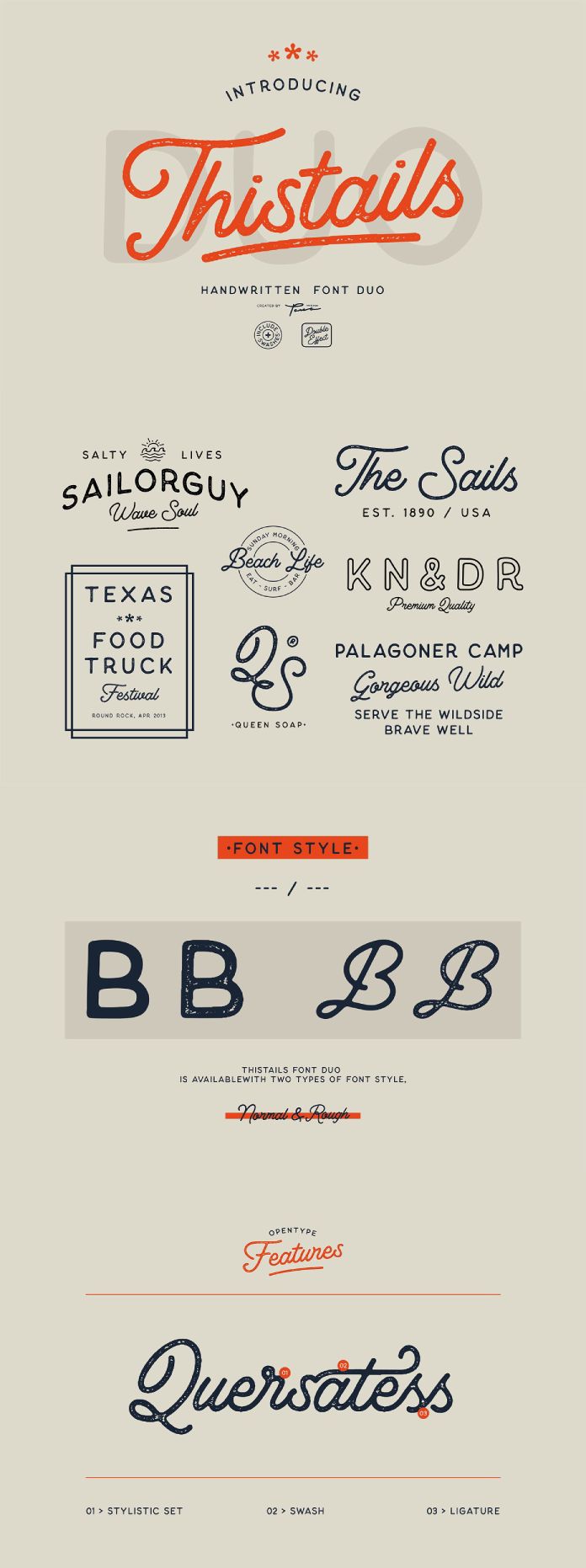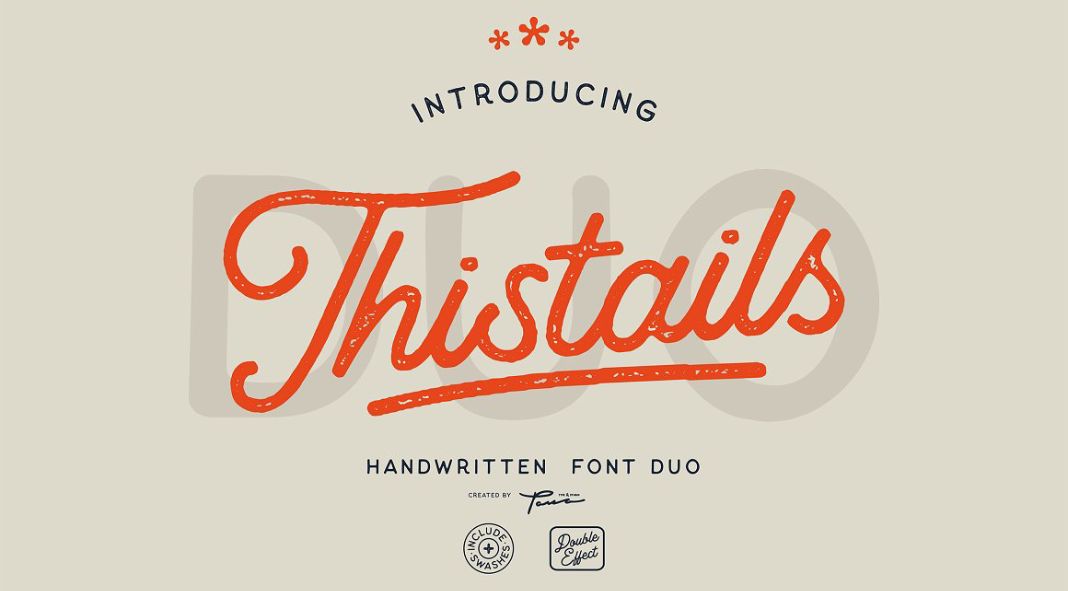
Download this lovely vintage font duo for your designs.
Designed and published by Pana Type & Studio, Thistails is the ideal font duo for any modern-vintage designs, combining a script and sans serif typeface. These fonts are perfect to use in your digital lettering, logo design, t-shirt prints, business cards, or branding materials. They are handcrafted with precision and care so you can create stunning visuals for quotes or nature photography like never before!